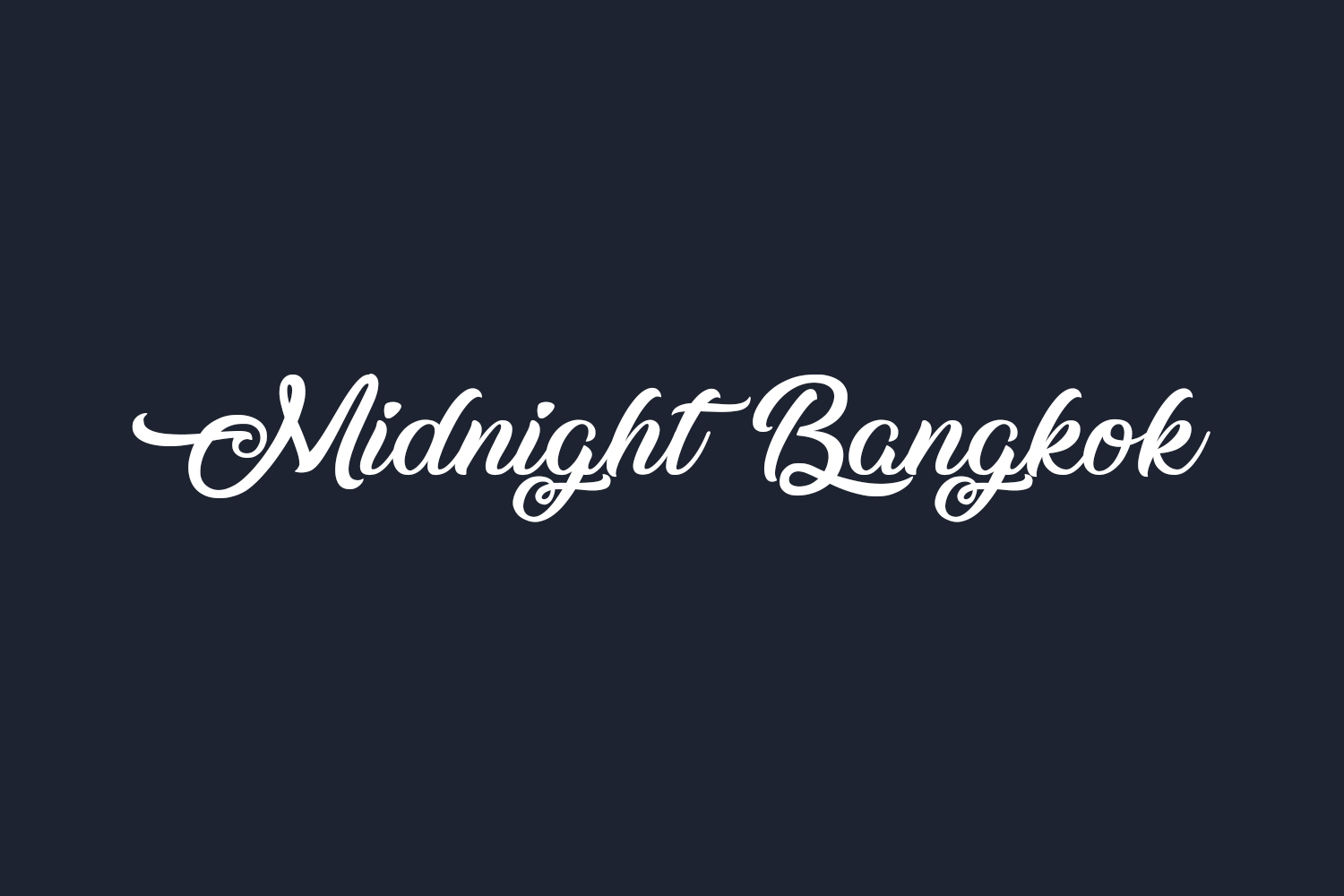
Midnight Bangkok Free Font is a beautiful, swashy script font that will add some elegance and charm to your work. This cursive font is a great way to give your work a captivating feel. Midnight Bangkok Free Font was designed by Typhoon Type™ and is free for personal use only. Please purchase the full version for commercial use.